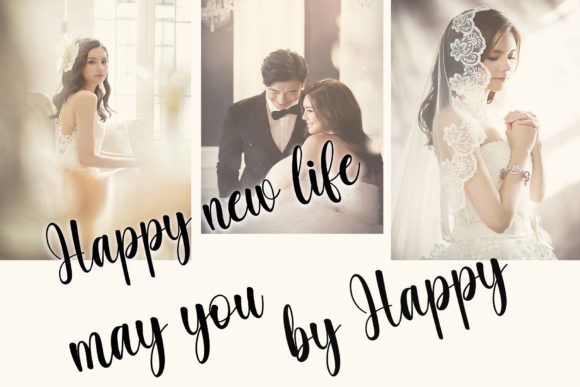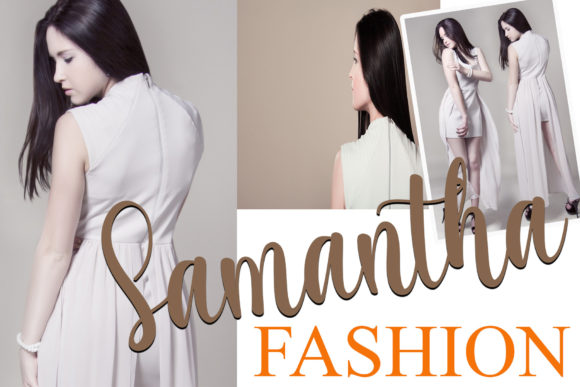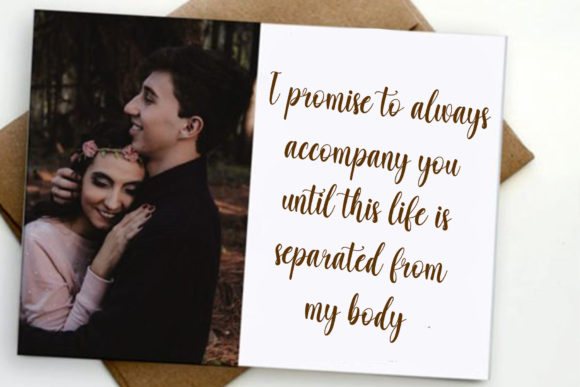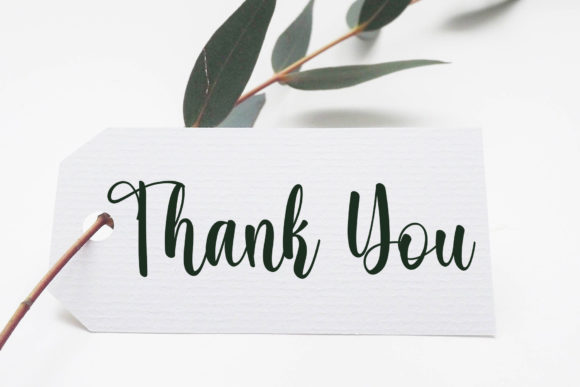
The Beauty of Calligraphy Fonts: Elevating Designs with Elegance and Flair
Calligraphy is a delicate, elegant, and flowing handwritten font that has been a cornerstone of art and design for centuries. Its beautiful and well-balanced characters make it an ideal match for a wide pool of designs, adding a touch of sophistication and refinement to any creative project. Whether you’re a designer, crafter, or simply someone who appreciates the art of beautiful writing, calligraphy fonts are sure to inspire and elevate your work.
What is Calligraphy?
Calligraphy is the art of beautiful handwriting, characterized by its flowing lines, intricate letterforms, and precise strokes. It requires a great deal of skill and practice to master, but the results are well worth the effort. Calligraphy can be used to create stunning works of art, from elegant invitations and certificates to beautiful murals and typographic designs.
The Versatility of Calligraphy Fonts
One of the key benefits of calligraphy fonts is their versatility. They can be used in a wide range of design applications, from wedding invitations and event branding to packaging and advertising. Calligraphy fonts can add a touch of elegance and sophistication to even the most mundane designs, making them perfect for creative projects that require a bit of flair.
Types of Calligraphy Fonts
There are many different types of calligraphy fonts to choose from, each with its own unique characteristics and style. Some popular types of calligraphy fonts include:
- Copperplate Calligraphy: Known for its precise and elegant letterforms, Copperplate calligraphy is a popular choice for formal designs and events.
- Brush Calligraphy: With its bold and expressive strokes, brush calligraphy is perfect for creating eye-catching designs and headlines.
- Spencerian Calligraphy: This elegant and flowing script is ideal for creating beautiful wedding invitations and event branding.
Tips for Using Calligraphy Fonts in Design
When using calligraphy fonts in design, there are a few things to keep in mind:
- Keep it simple: While calligraphy fonts can be intricate and beautiful, they can also be overwhelming if overused. Keep your design simple and focused to let the calligraphy font shine.
- Choose the right font: With so many different types of calligraphy fonts to choose from, make sure to select one that fits your design style and application.
- Experiment with color and texture: Calligraphy fonts can be even more stunning when paired with color and texture. Experiment with different combinations to find the one that works best for your design.
Adding Calligraphy Fonts to Your Designs
Adding calligraphy fonts to your designs is easier than ever. With the rise of digital design tools and font libraries, you can access a wide range of calligraphy fonts and experiment with different styles and combinations. Here are a few ways to incorporate calligraphy fonts into your designs:
| Font Name | Calligraphy Font |
Calligraphy fonts are a beautiful and elegant way to add a touch of sophistication and refinement to your designs. With their flowing lines, intricate letterforms, and precise strokes, calligraphy fonts can elevate even the most mundane designs into something truly special. Whether you’re a designer, crafter, or simply someone who appreciates the art of beautiful writing, calligraphy fonts are sure to inspire and delight. So why not give it a try? Add a calligraphy font to your next design project and see the difference it can make!